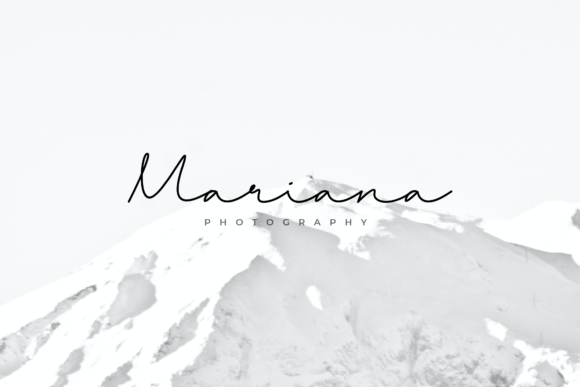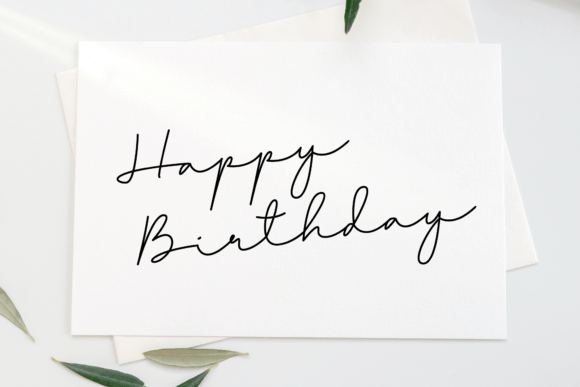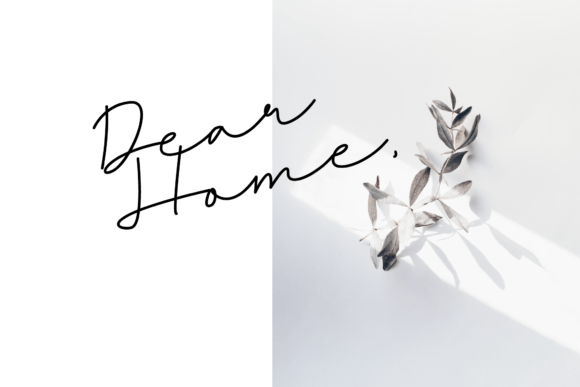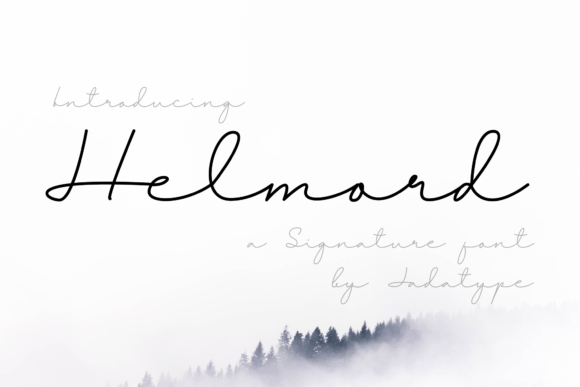
Introduction to Helmord Font
Helmord is a lovely and timeless monoline signature font.
It is the best choice for creating eye-catching logos, branding, and quotes Every letter has a unique and beautiful touch, which will make your design come alive.
Key Features of Helmord Font
Why Choose Helmord Font?
Helmord Font offers exceptional quality and versatility, making it a valuable addition to your design toolkit. Whether you’re creating for personal projects or commercial use, Helmord Font delivers professional results.